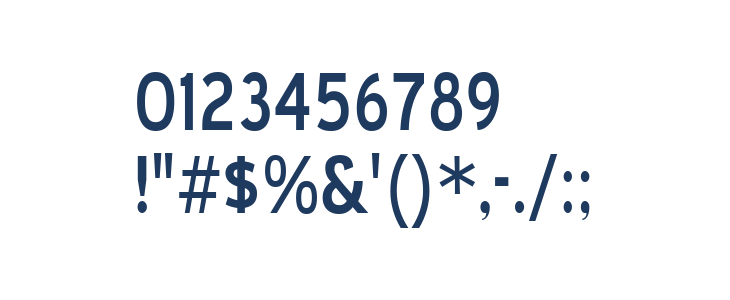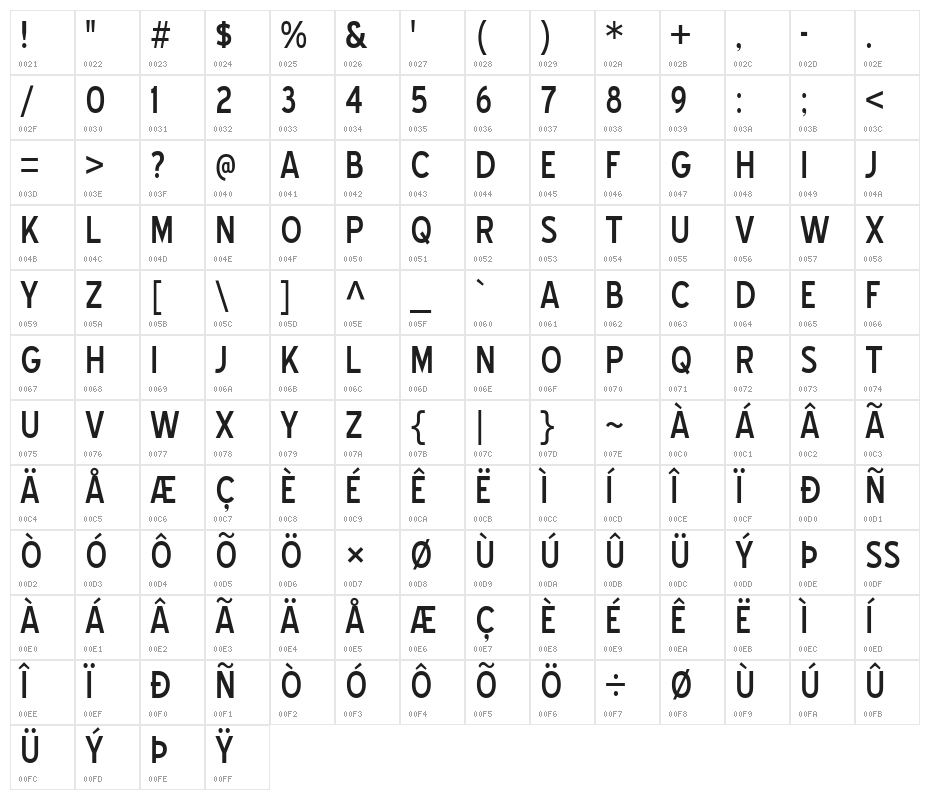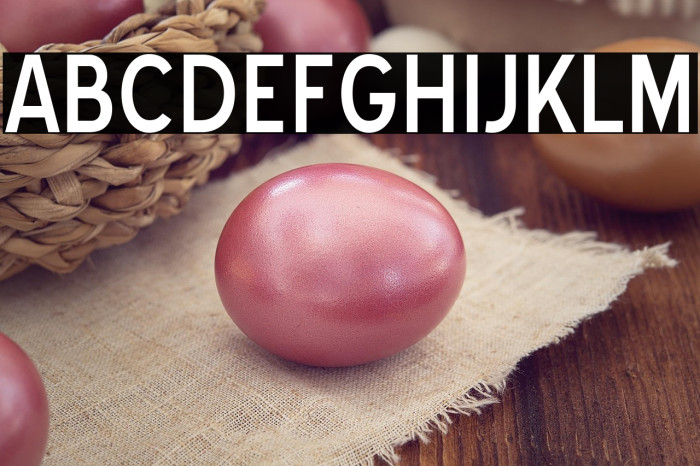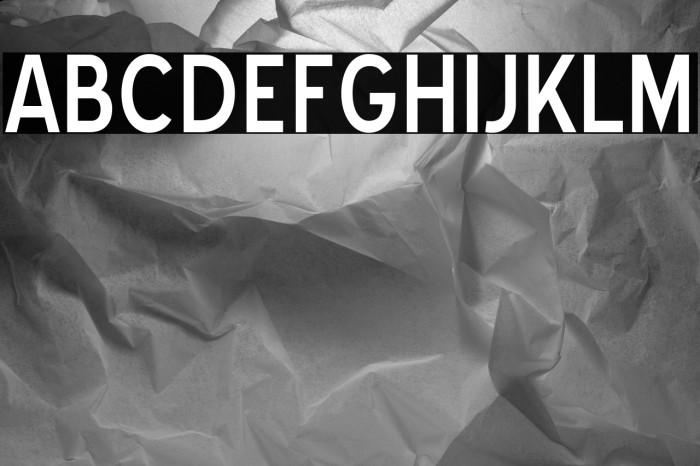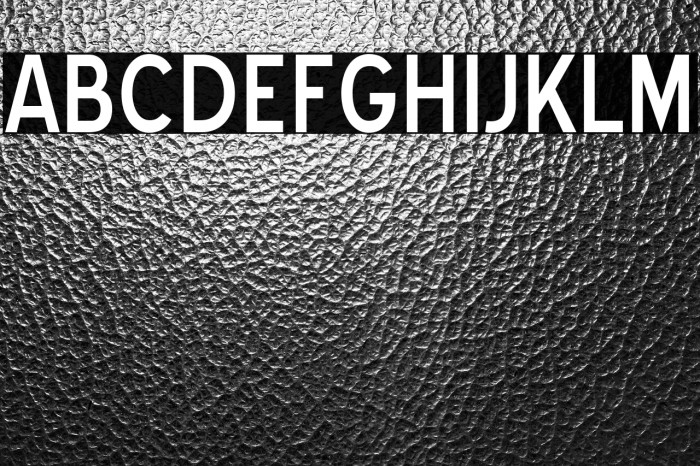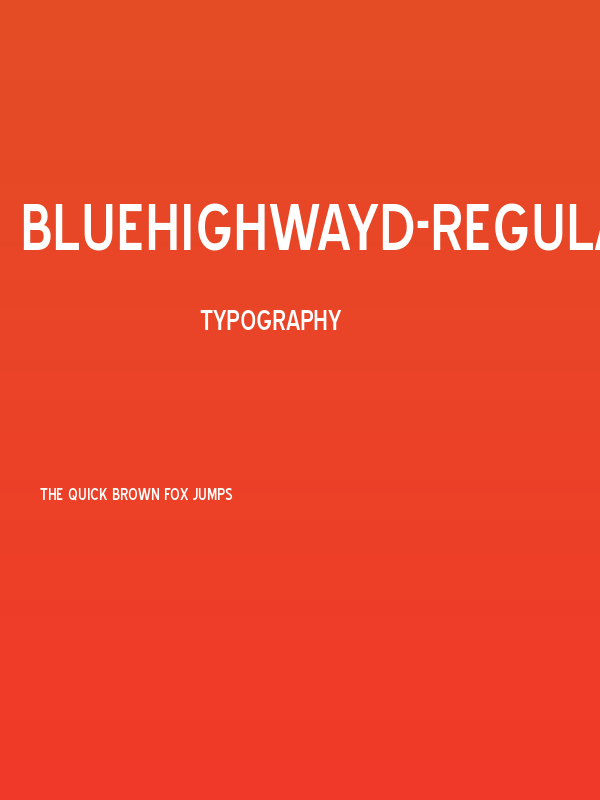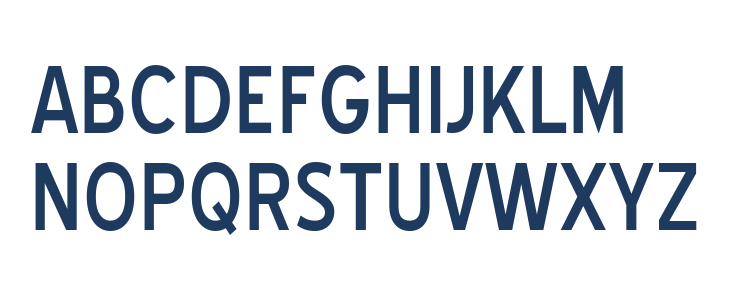
BlueHighwayD-Regular Font
BlueHighwayD-Regular Description
This font features a clean and modern sans-serif design, characterized by its uniform stroke width and geometric shapes. The uppercase letters are bold and impactful, making them suitable for attention-grabbing headlines. The lowercase letters maintain the same clarity and simplicity, ensuring readability across various sizes. Numbers are straightforward and consistent with the overall style, while special characters are clearly defined, enhancing the font's versatility. The design is functional and minimalistic, making it ideal for both digital and print media.
| Proposed Projects | Ideal for signage, branding, digital interfaces, and editorial design. |